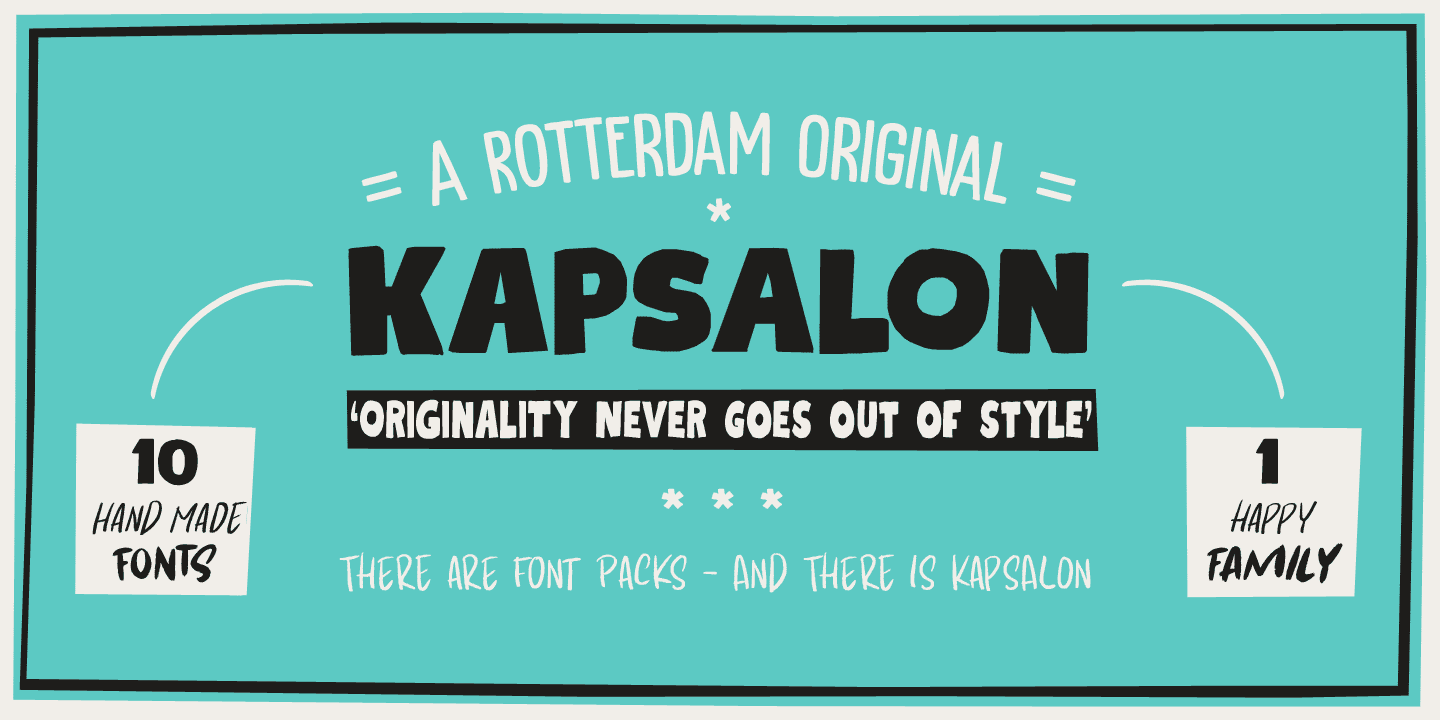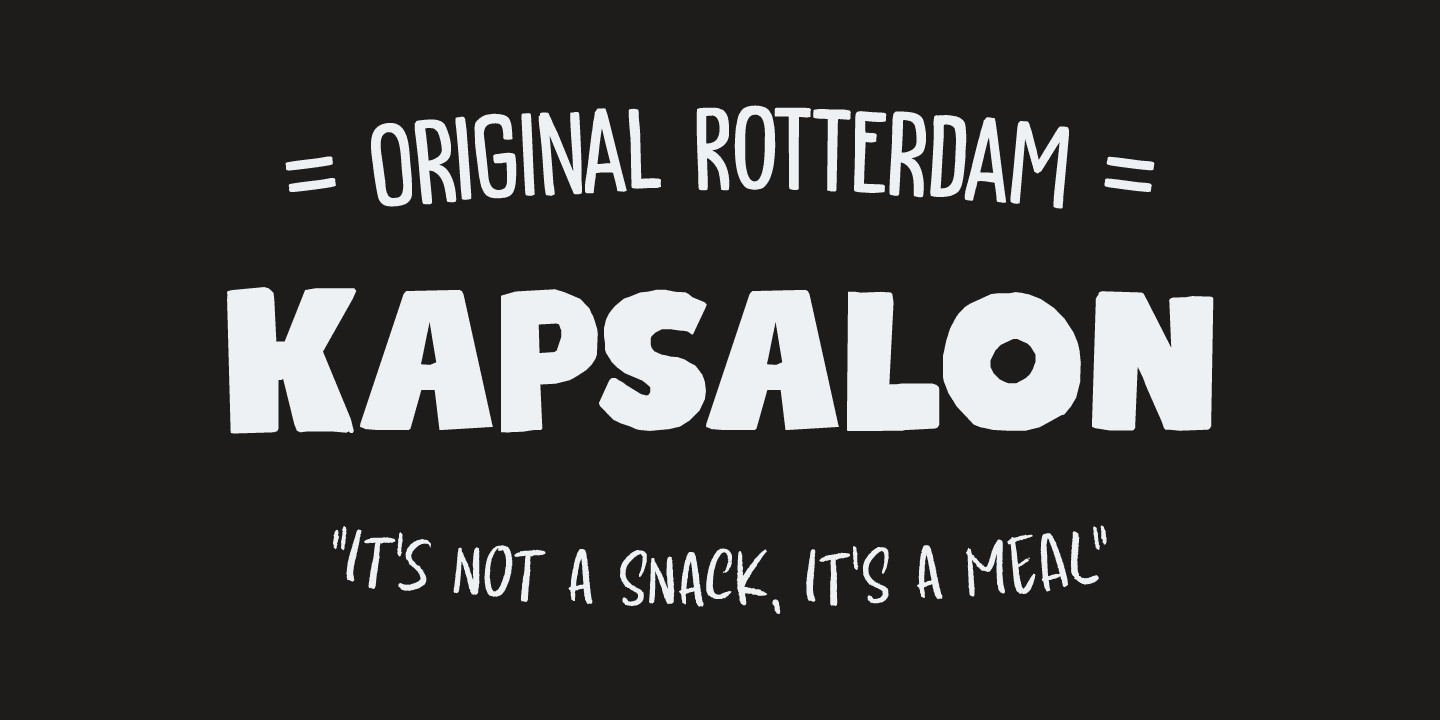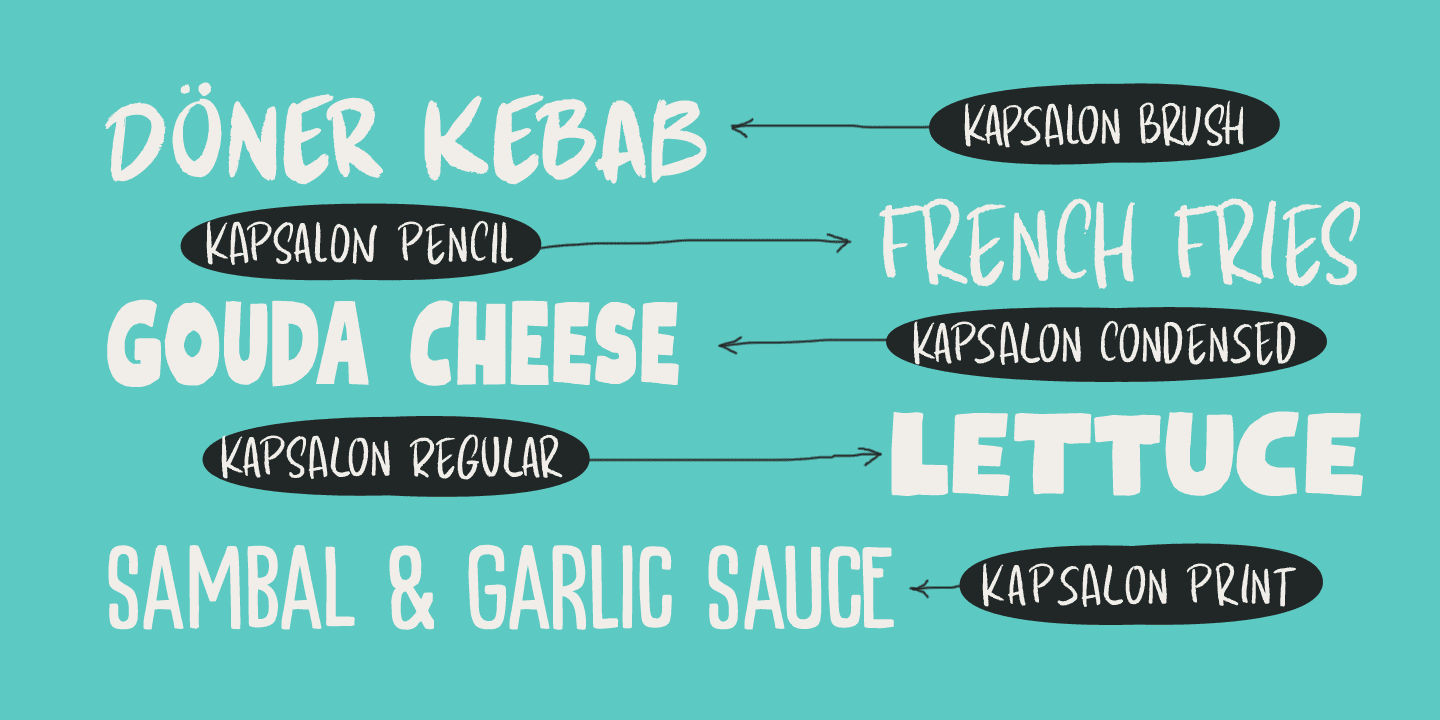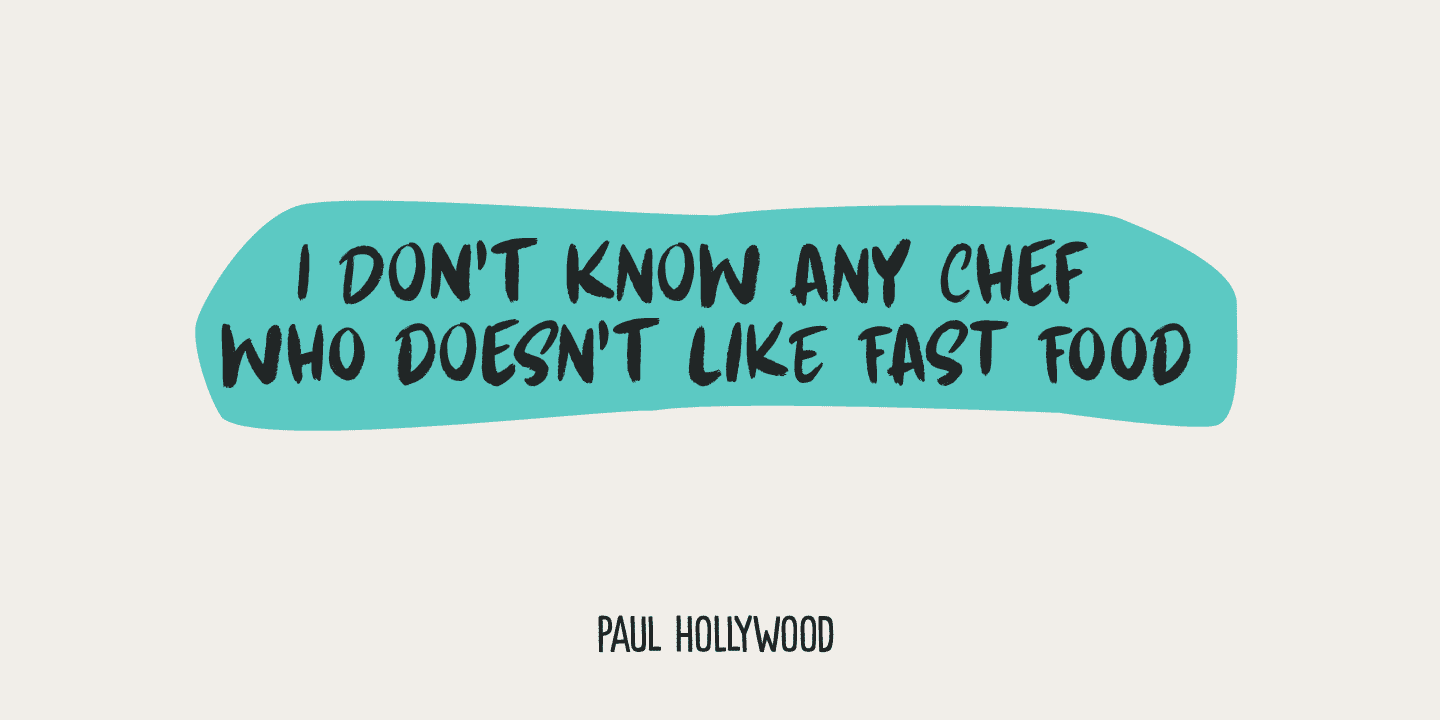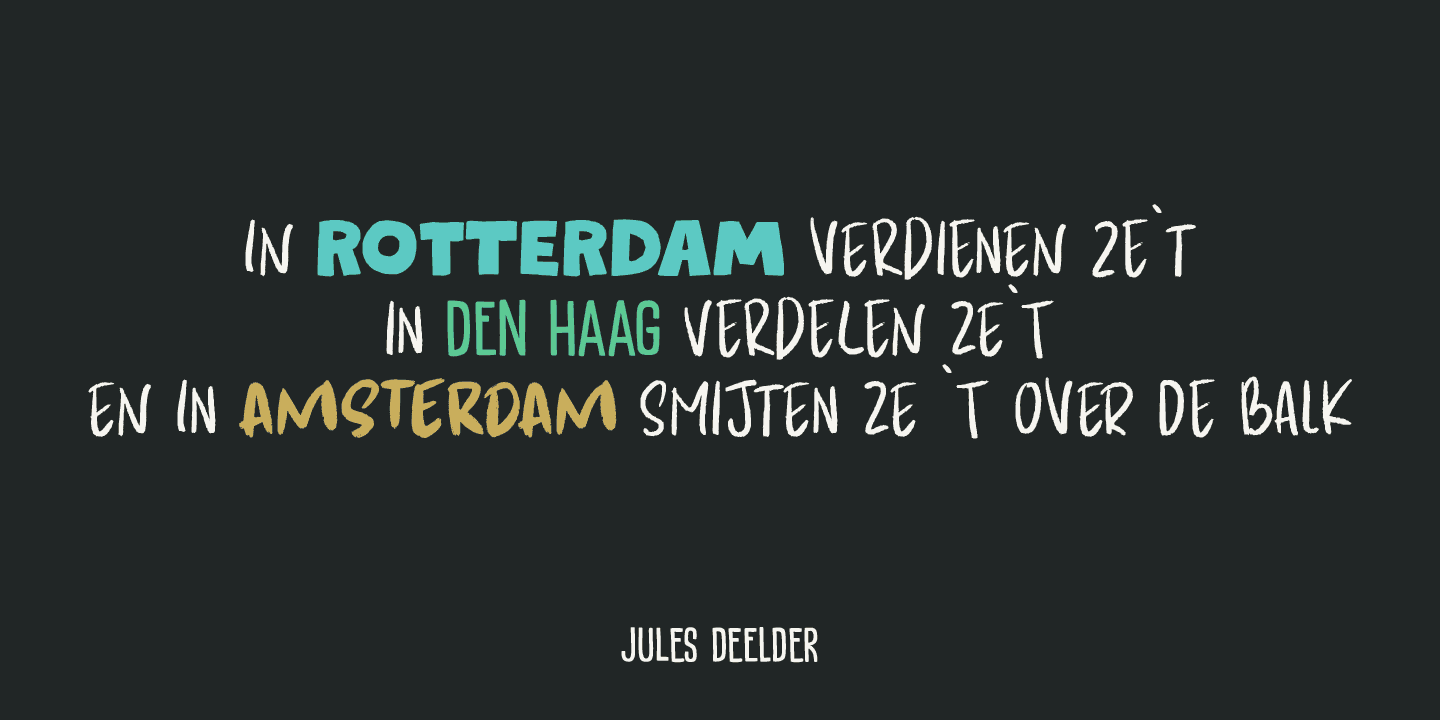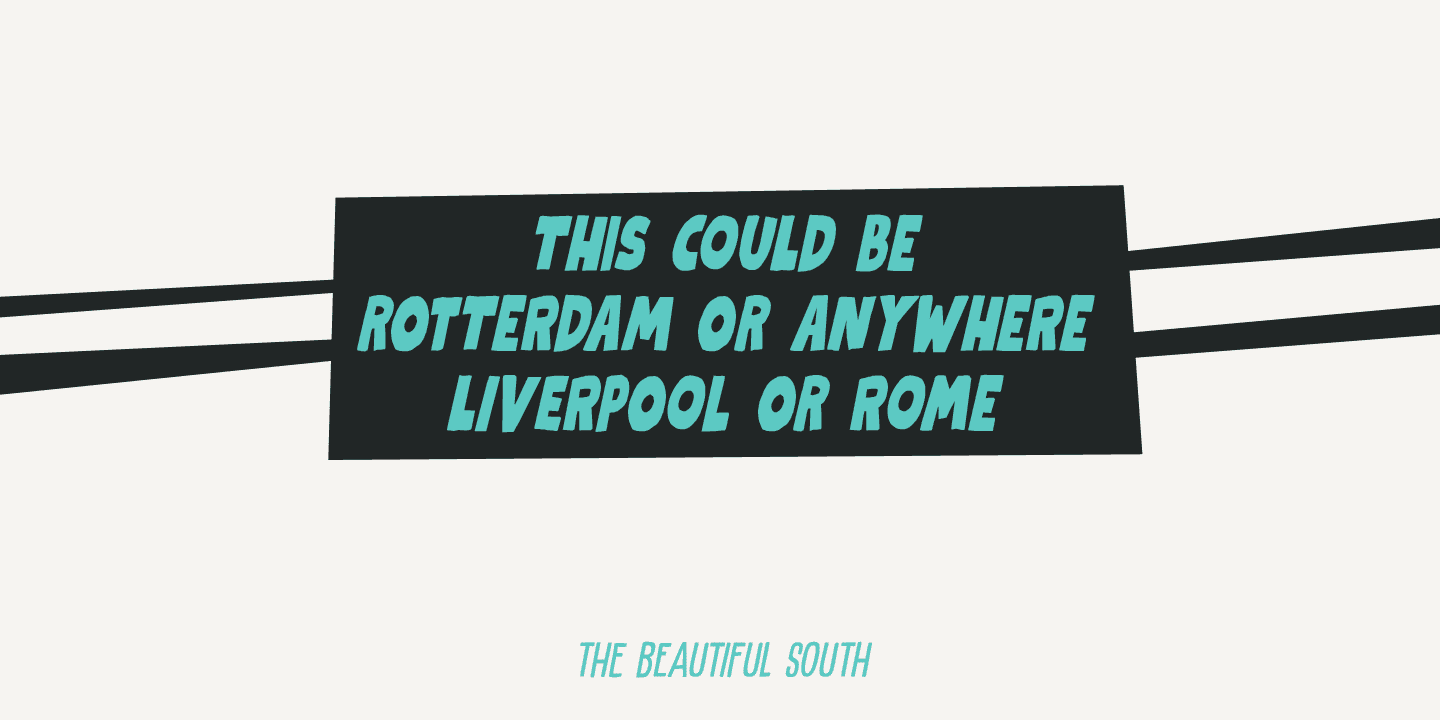
Kapsalon is a Dutch word, meaning ‘hairdresser’s’. Since 2003 it is also a very popular snack food, which consists of french fries, döner kebab, lettuce, sambal, garlic sauce and melted Gouda cheese, served in an aluminium tray.
I have to admit that I have never eaten a Kapsalon myself, as I am not too fond of fast food. I named this font package Kapsalon, because, like its namesake, it consists of several unrelated elements that work really well when combined.